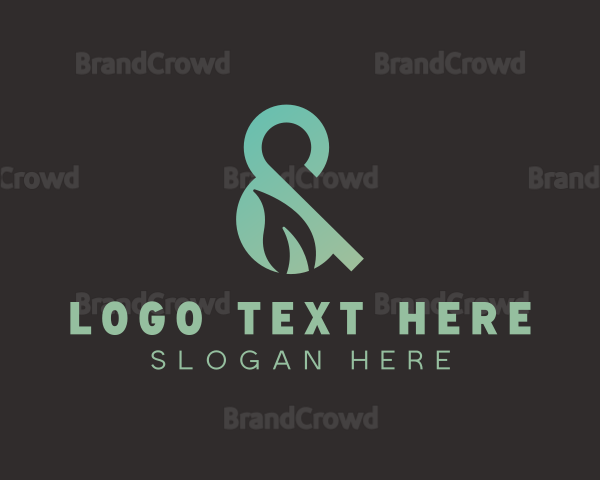
Leaf Ampersand Type Logo
Introducing the "Leaf Ampersand Type" logo—a modern and eco-friendly design that beautifully merges nature with technology. This unique logo features a stylized ampersand, elegantly crafted with a leaf motif, symbolizing growth and innovation in the software and biotech industries. The gradient colors evoke a sense of vitality and freshness, making it perfect for agencies and companies focused on sustainability. With its sophisticated typography and calligraphic flair, the Leaf Ampersand Type logo stands out as a signature mark that embodies creativity and professionalism. The ligature design seamlessly connects elements, representing collaboration and synergy in a digital world. Ideal for apps and brands that prioritize eco-consciousness, this logo is not just a visual identity; it’s a statement of commitment to a greener future. Elevate your brand with a logo that speaks to both modern aesthetics and environmental responsibility.